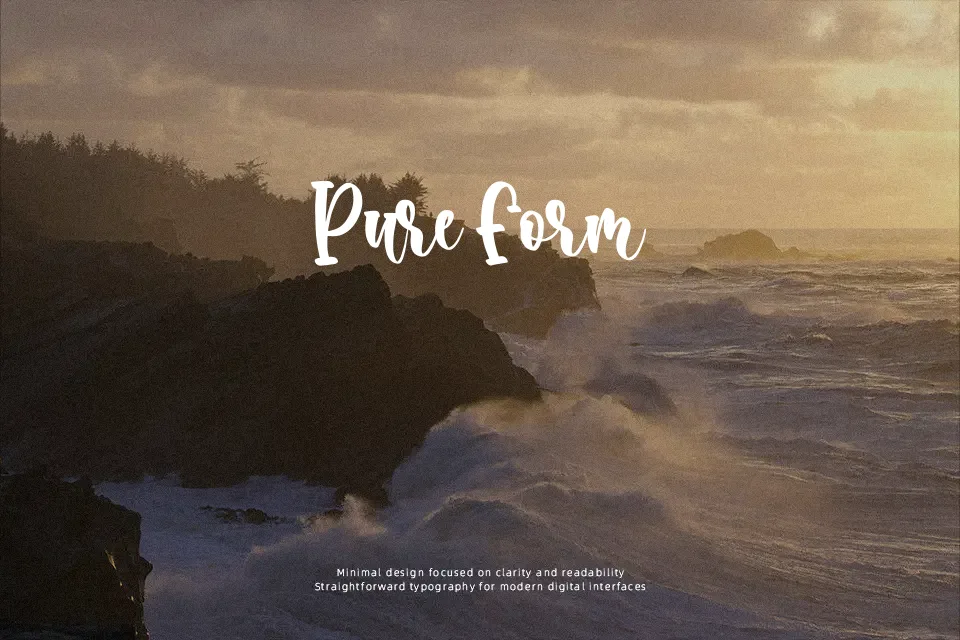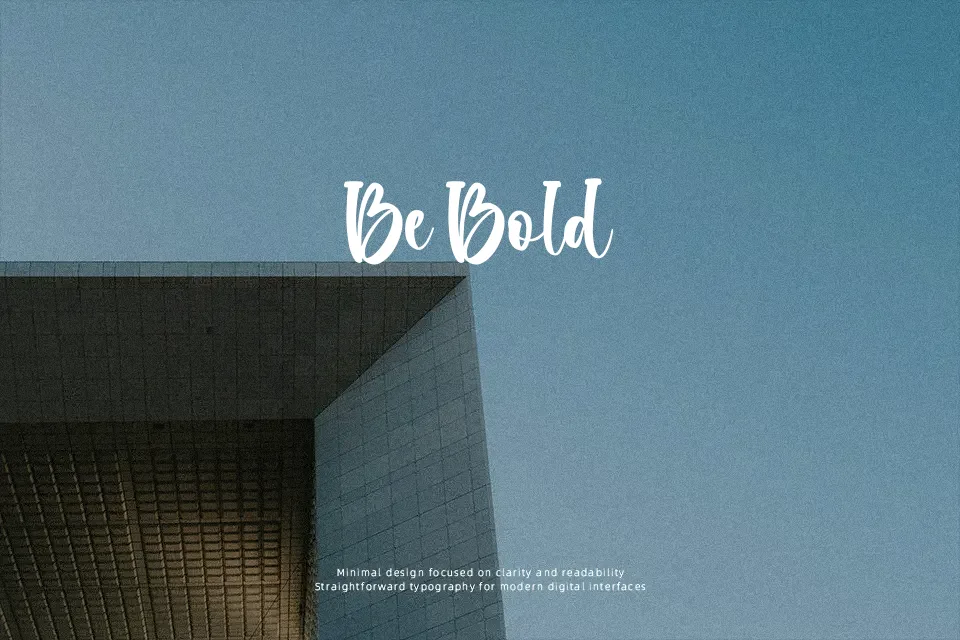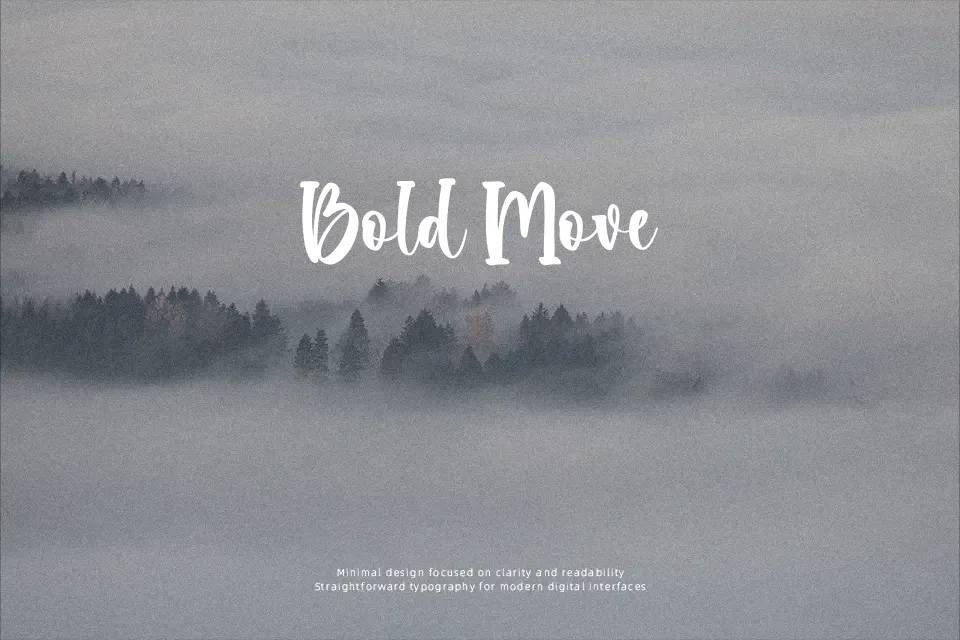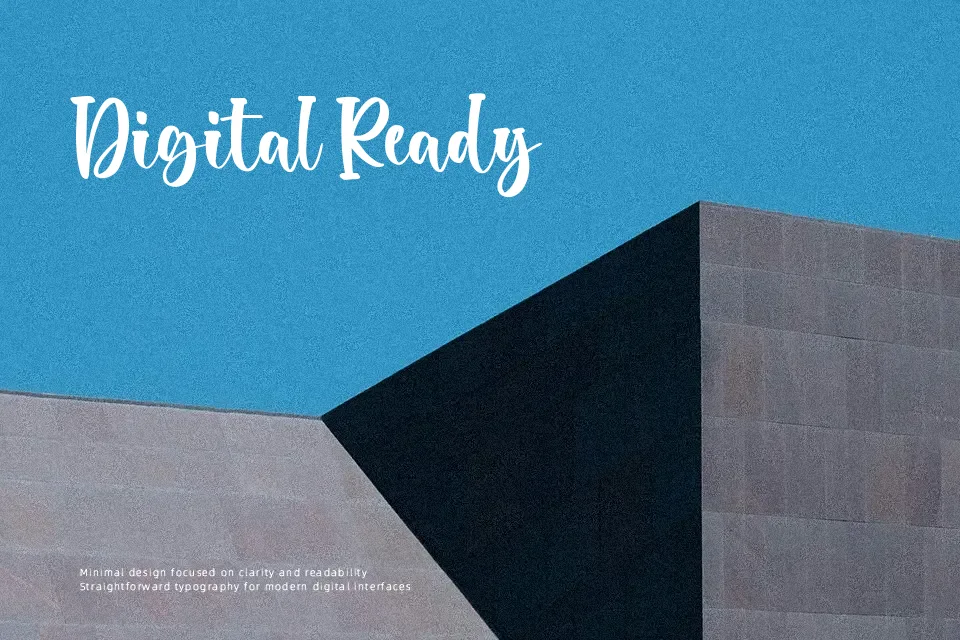
Bunny Christmas Font
Designed by Blankids
Bunny Christmas is a condensed handwritten script with slim vertical strokes, lively loops, and moderate contrast that reads like a quick, confident marker sketch. The uppercase set feels more decorative and showy, while the lowercase keeps things compact and rounded so short phrases remain legible at headline sizes. It leans strongly decorative and casual, so it shines on holiday greeting cards, kids’ gift tags, photo overlays, and playful Christmas promotions rather than on long paragraphs. If your layout relies on clean grids or strict brand minimalism, this font can come across as too whimsical and informal, and tight tracking will easily make it look crowded. Compared with a classic script, Bunny Christmas feels quirkier and more youthful, which is part of its charm but also its main limitation.
short Christmas card headlines
holiday invitation titles
festive social media posts
playful seasonal branding accents
body text or long paragraphs
formal corporate branding systems
very small UI labels
minimalist editorial layouts
Perfect for christmas, headline, and invitation, with a creative and decorative style.